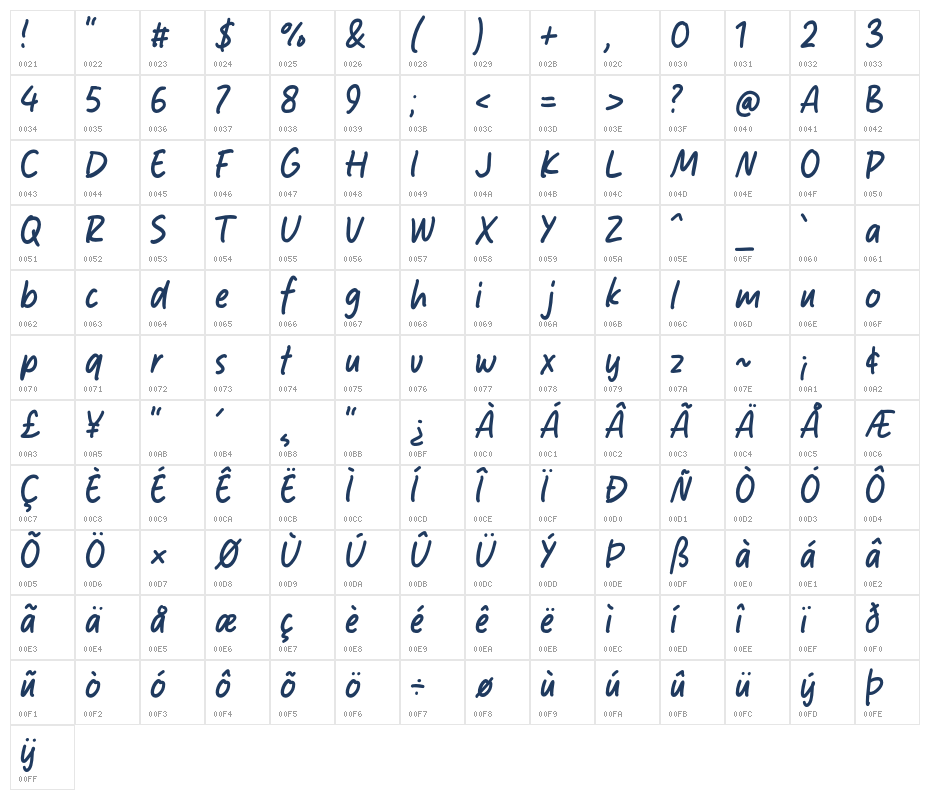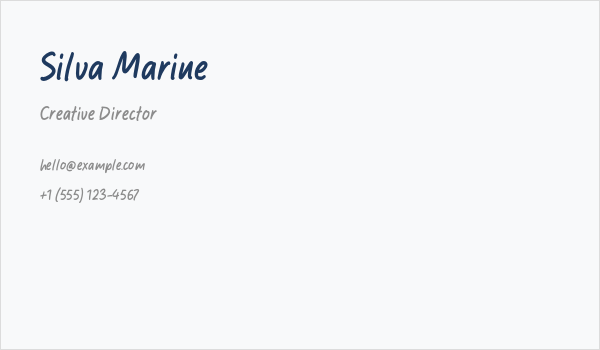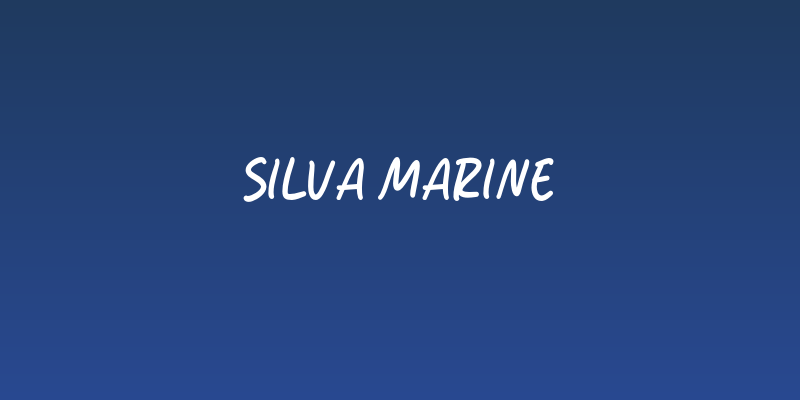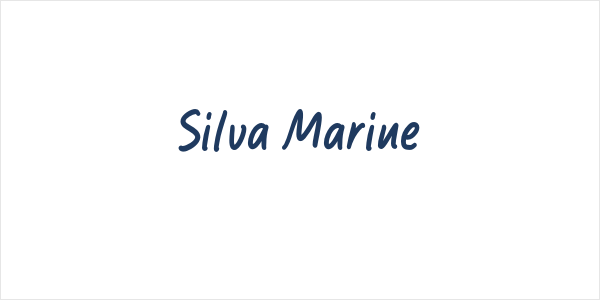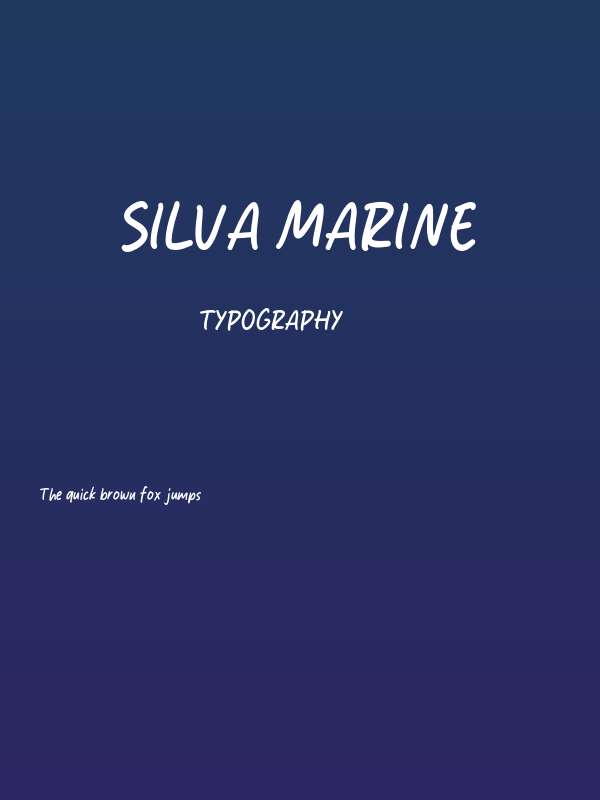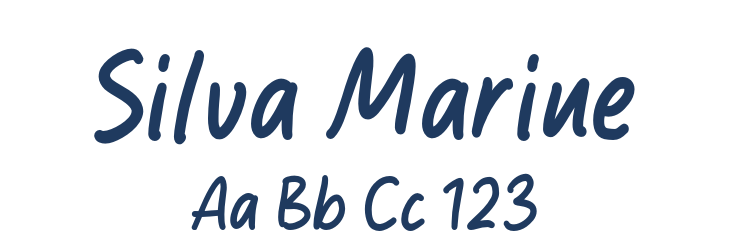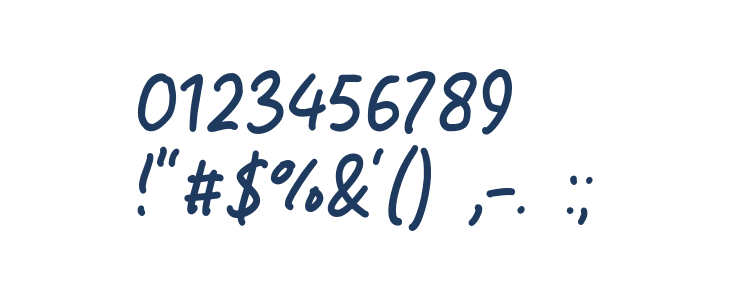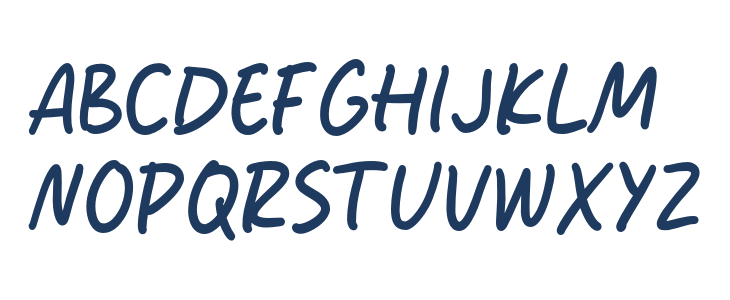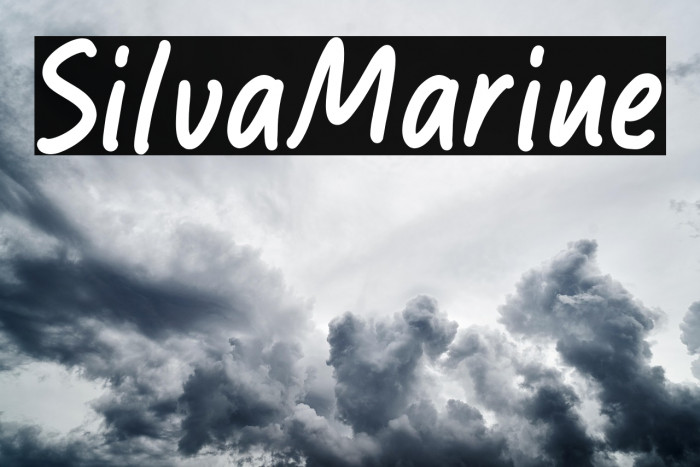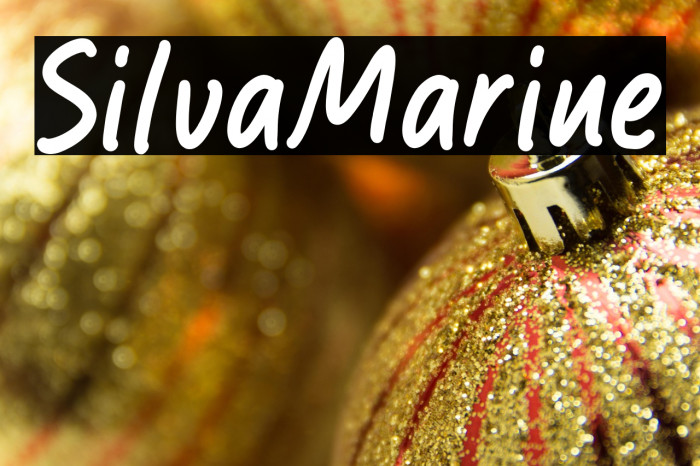
Silva Marine Font
Silva Marine Description
A casual, handwritten script font with a smooth, flowing style.
Silva Marine
| Overall Style | Casual, Handwritten |
| Use Case | Headlines, Personal projects, Invitations, Creative designs |